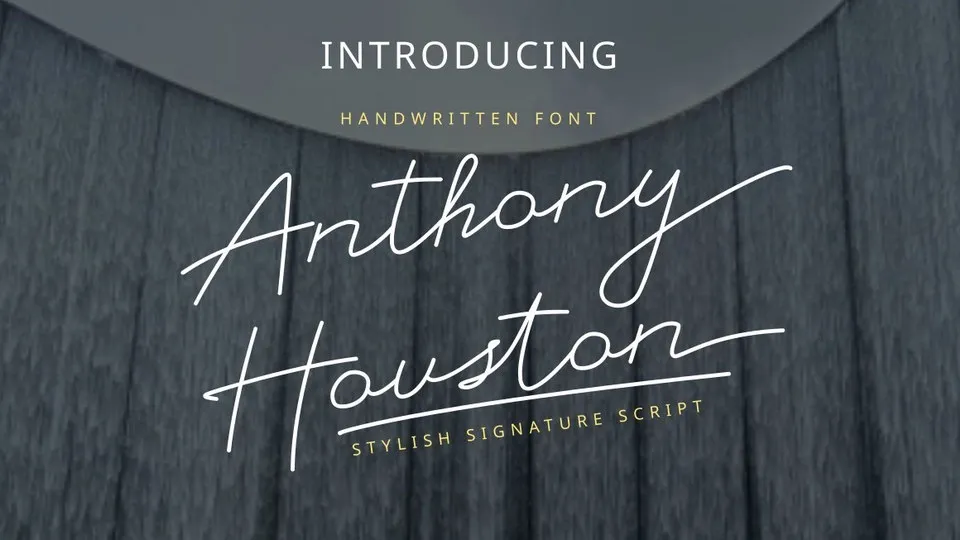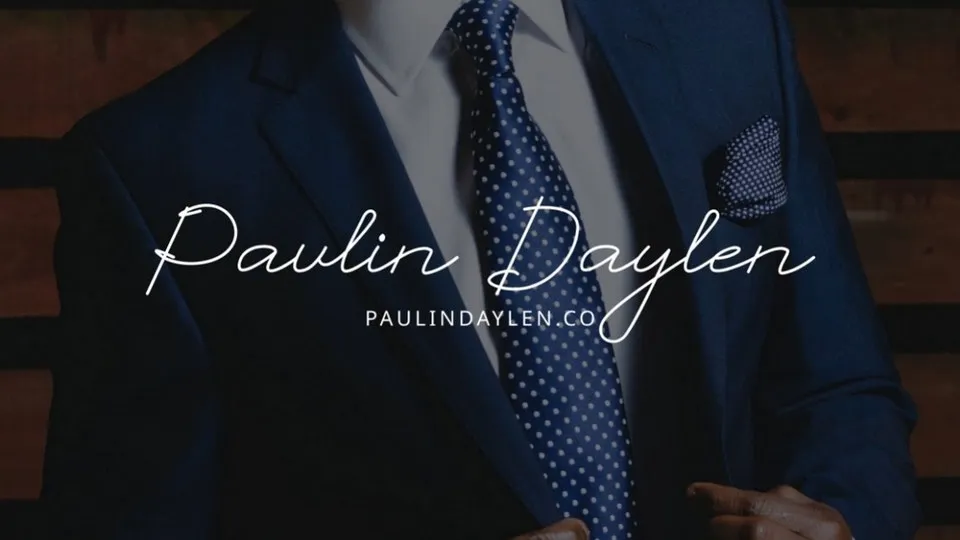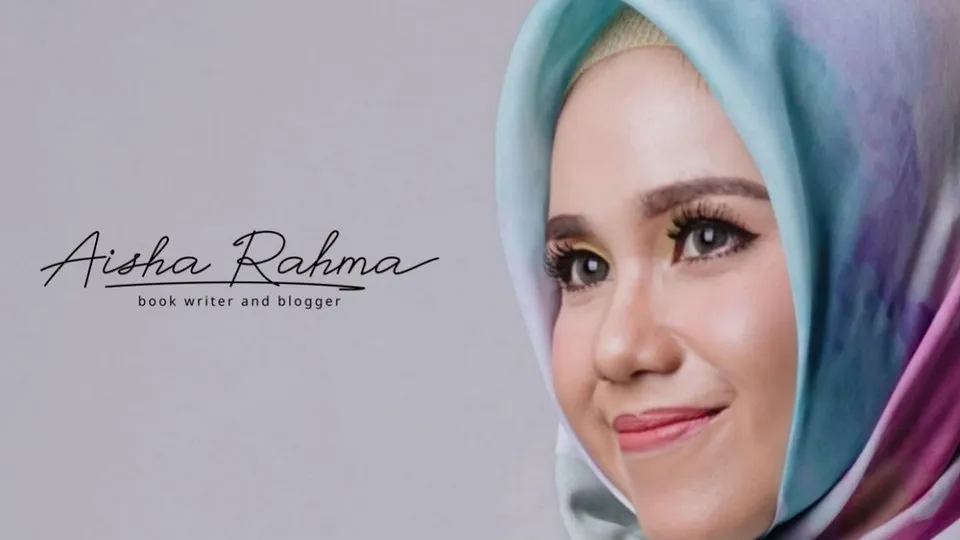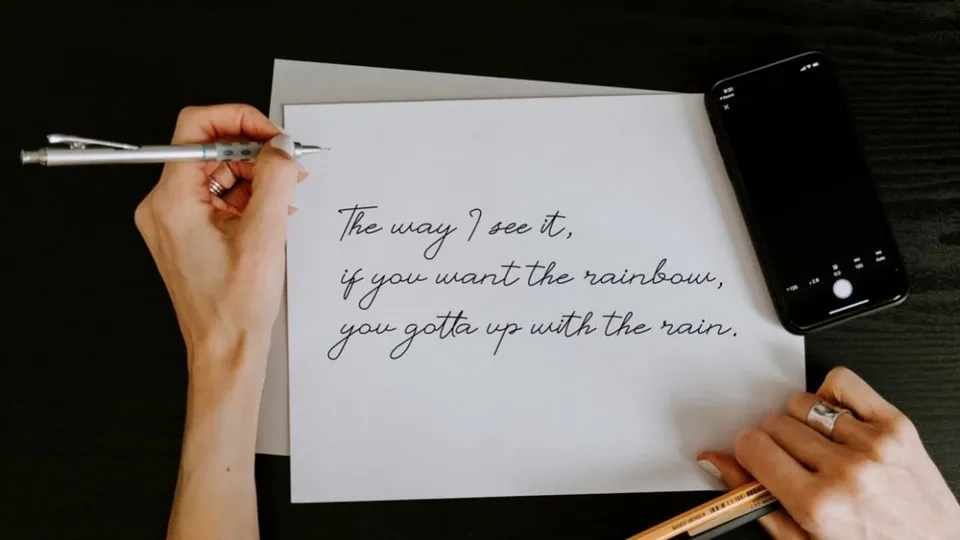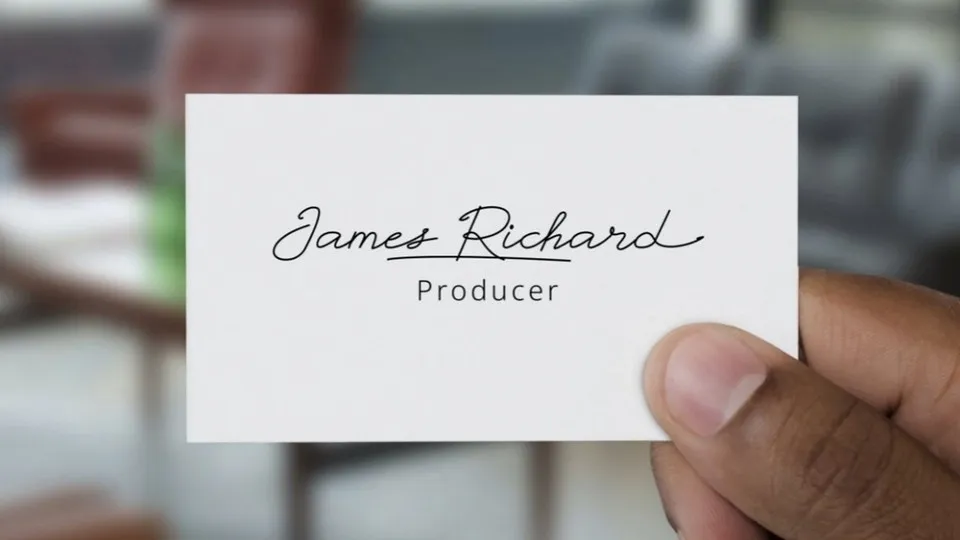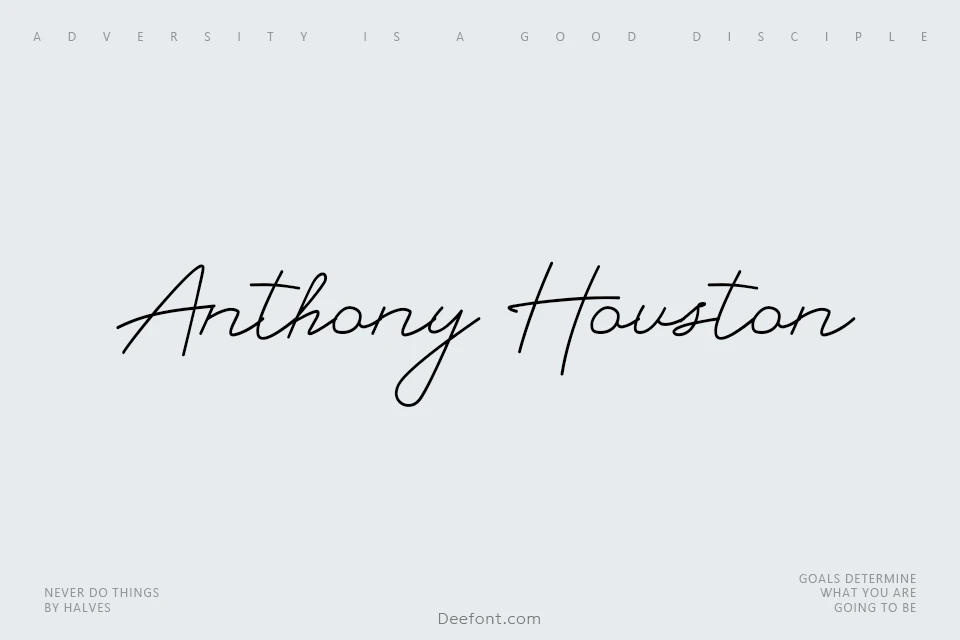
Anthony Houston Font
Anthony Houston Font is a stylish handwritten signature script designed to add a personal and elegant touch to your projects. With its smooth, flowing lines and natural handwriting feel, Anthony Houston is perfect for branding, logos, invitations, and social media graphics. This font captures the essence of a genuine handwritten signature, making your designs stand out with authenticity and charm. Ideal for both professional and creative uses, Anthony Houston Font brings a modern, sophisticated flair to any layout. Let your words make a statement with the unique and graceful style of Anthony Houston.